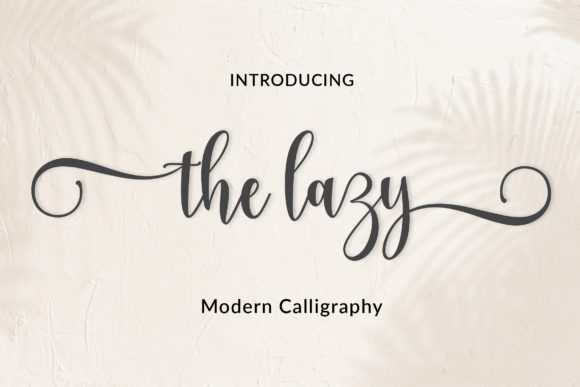
Behold, the enchanting The Lazy Font, a script typeface of unparalleled elegance and charm, awaits your creative embrace. Its graceful strokes, reminiscent of a skilled calligrapher's hand, dance harmoniously along the baseline, adding a touch of sophistication and artistry to any design project.
Unleash the allure of The Lazy Font and captivate your audience with its refined and delicate appearance. Let your words take on a new life, flowing effortlessly across the page with a sense of effortless beauty. Each character, meticulously crafted, exudes a distinct personality, adding depth and dimension to your creative vision.
With The Lazy Font, you hold the key to unlocking a world of possibilities. Its versatility shines in countless applications, from heartfelt wedding invitations to whimsical branding designs. It effortlessly elevates social media posts, greeting cards, and even product packaging, transforming the ordinary into the extraordinary.
Embark on a creative journey with The Lazy Font as your trusted companion. Its PUA encoding grants you effortless access to an array of stunning glyphs and ligatures, empowering you to add intricate details and flourishes to your designs. Unleash your imagination and explore the boundless creative horizons that await.
Step into a realm of elegance and grace, where your designs take center stage, adorned with the exquisite beauty of The Lazy Font. Allow its enchanting allure to captivate hearts and minds, leaving an indelible mark on your creative endeavors.